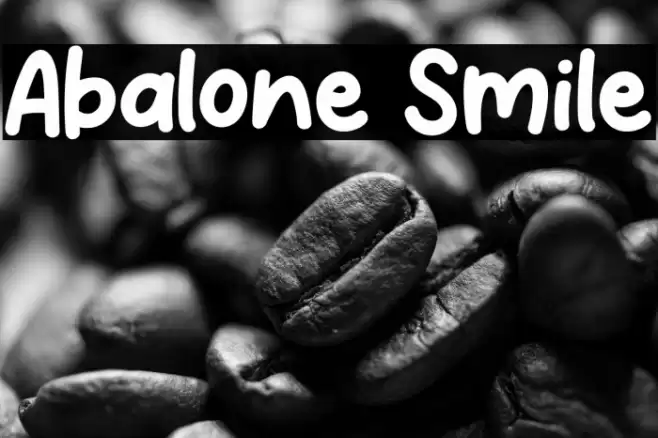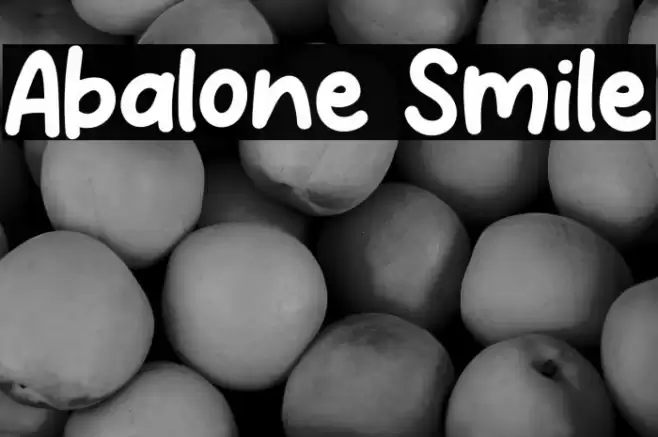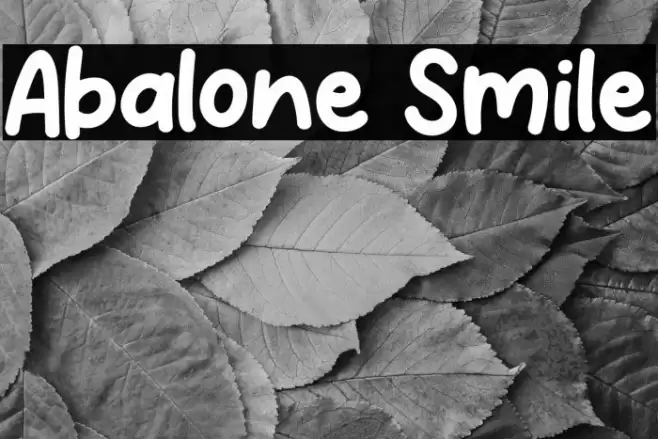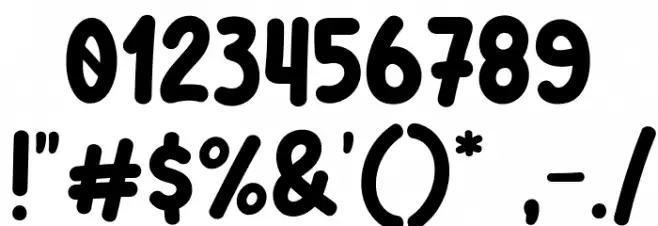
Abalone Smile Font
Abalone Smile Description
This playful and whimsical font features rounded, bold characters with a hand-drawn feel. The letters are slightly irregular, adding a sense of fun and informality. The uppercase and lowercase letters maintain a consistent style, with smooth curves and a friendly appearance. Numbers and special characters are equally bold and rounded, making them easily legible. This font exudes a cheerful and approachable vibe, perfect for projects that aim to convey warmth and friendliness.
A playful, rounded font with a hand-drawn, whimsical style from Cartoon fonts.
- Font: Abalone Smile
- Proposed Projects: Ideal for children's books, playful branding, greeting cards, and casual invitations.
- Overall Style: Playful
- Use Case: Headlines, Logos, Informal Text